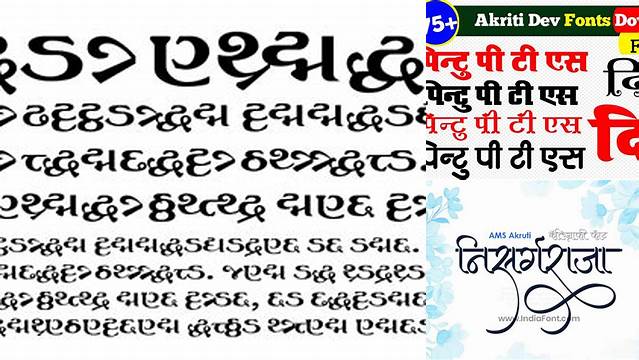
Akruti Gujarati Font: Free Download & Usage Guide
Are you looking for the perfect Gujarati font to enhance your design projects? Look no further! The Akruti Gujarati Font Family is a fantastic choice, offering a blend of elegance, readability, and cultural authenticity. In this comprehensive guide, we'll dive deep into everything you need to know about this font family, including where to find free downloads, how to install them, and tips for effective usage. So, let's get started, guys!
What is the Akruti Gujarati Font Family?
The Akruti Gujarati Font Family is a collection of high-quality fonts designed specifically for the Gujarati script. This font family stands out due to its versatility and aesthetic appeal, making it suitable for a wide range of applications, from print media to digital interfaces. Whether you're working on a book, a website, or a poster, the Akruti fonts can add a touch of sophistication and readability to your text.
One of the key features of the Akruti Gujarati Font Family is its attention to detail. The designers have meticulously crafted each character to ensure clarity and visual harmony. This is particularly important for Gujarati script, which has complex letterforms and ligatures. The fonts maintain the traditional essence of the script while incorporating modern design principles, resulting in a typeface that is both timeless and contemporary. The variety within the family—ranging from bold to light styles—allows designers to create visual hierarchy and emphasis within their text. This makes the Akruti Gujarati Font Family not just a set of fonts, but a versatile toolkit for anyone working with Gujarati typography. Its balanced aesthetic and functional design ensure that your message is communicated effectively and beautifully, making it a go-to choice for professionals and enthusiasts alike.
Why Choose Akruti Gujarati Fonts?
Choosing the right font is crucial for effective communication. Here’s why the Akruti Gujarati Font Family is a top pick:
- Readability: Akruti fonts are designed with readability in mind, ensuring that your text is easy to read in both print and digital formats.
- Versatility: With a variety of styles and weights, Akruti fonts can be used for headlines, body text, and more. The Akruti Gujarati Font Family is incredibly versatile, making it a fantastic choice for a wide array of design projects. Whether you're crafting a compelling headline, composing engaging body text, or designing intricate layouts, these fonts provide the flexibility you need. The different weights and styles within the family allow you to create visual hierarchy and emphasis, ensuring your message is communicated effectively. For instance, you might use a bold weight for headings to grab attention and a lighter weight for body text to ensure readability. This adaptability makes Akruti fonts suitable for everything from formal documents and academic publications to creative marketing materials and personal projects. Their clean and elegant design ensures that your text not only looks professional but also resonates with your audience, making your content more engaging and impactful.
- Cultural Authenticity: These fonts preserve the essence of the Gujarati script, making them ideal for projects that celebrate Gujarati culture and heritage.
- Professional Design: Akruti fonts are professionally designed, ensuring high quality and a polished look for your projects.
Consider pairing Akruti Gujarati fonts with a clean sans-serif font for body text or using different weights and styles within the Akruti family to create contrast and hierarchy. For Latin script pairings, fonts like Open Sans or Lato can work well.